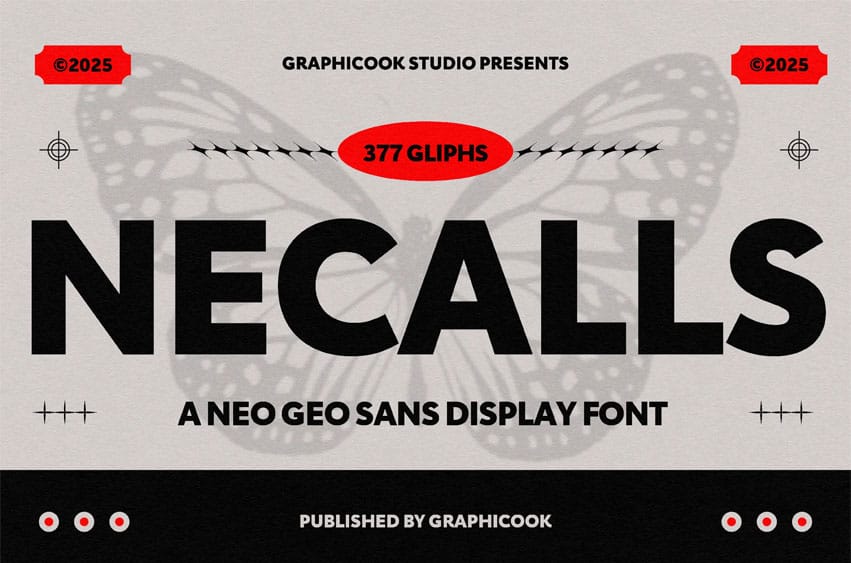
Necalls Font is a modern sans-serif font featuring bold, clean lines that enhance readability. It’s ideal for logos, business materials, fashion branding, and tech products.
Necalls is perfect for headlines, logotypes, magazines, packaging, quotes, movies, games, cover albums, book covers, and flyers, it’s a perfect solution for creating eye-catching designs that stand out in any context.